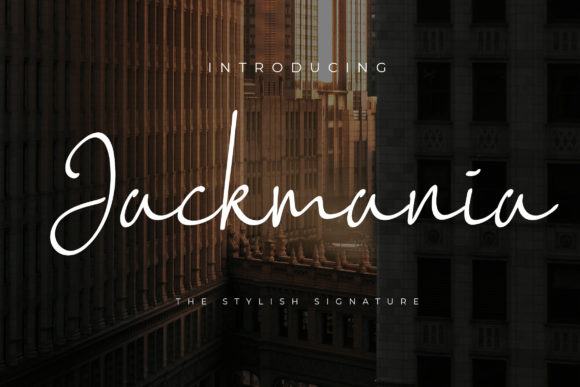
Immerse yourself in the enchanting realm of Jackmania, a script font that exudes elegance and charm. This cursive masterpiece is a creation of Letterday Studio, meticulously crafted to bring a touch of sophistication to your design projects. Whether you're crafting formal invitations, heartfelt love letters, or eye-catching social media posts, Jackmania effortlessly adds a touch of allure to every word.
With its graceful curves and flowing lines, Jackmania captures the essence of handwritten calligraphy, evoking a sense of personal connection and authenticity. Its versatility shines through its ability to adapt seamlessly to a wide range of design styles, from classic and timeless to modern and whimsical.
Elevate your designs with Jackmania, the font that transforms ordinary words into captivating works of art. Its unique character adds a captivating touch to logos, branding, wedding stationery, and any project where a hint of elegance is desired. Unleash your creativity and let Jackmania take your designs to new heights of beauty and sophistication.